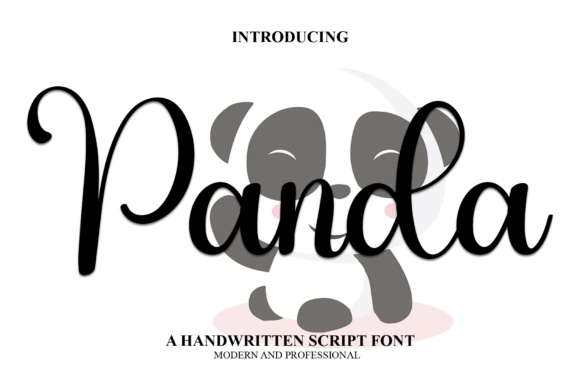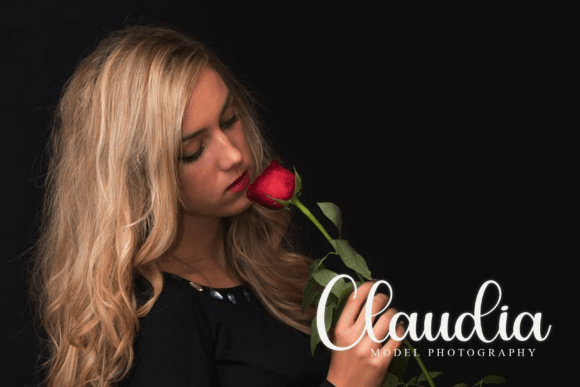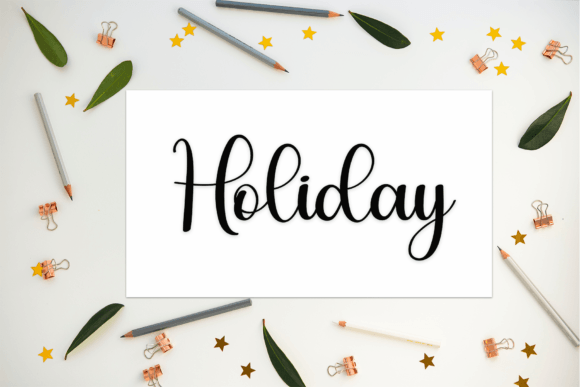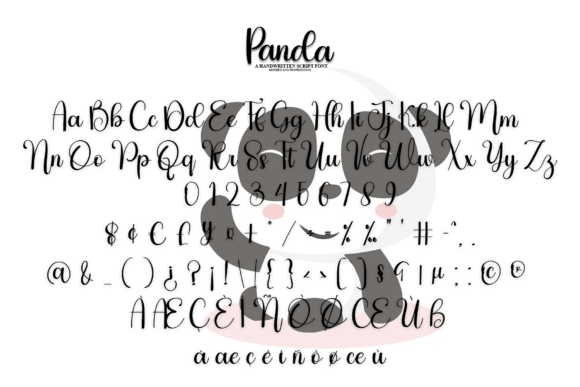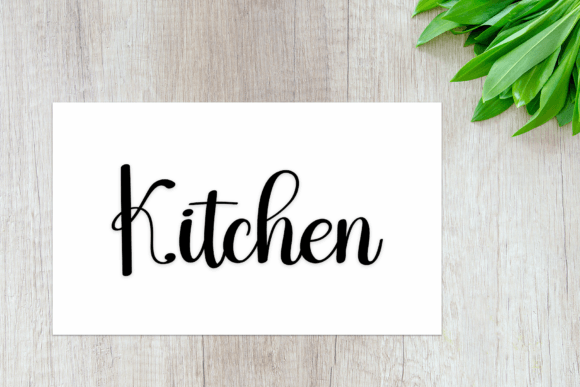
About Panda Font
Panda is a distinctive, round-lettered handwritten font that has been meticulously crafted to bring a unique touch to your favorite projects. With careful design and attention to detail, this font is intended to enhance a variety of creative works, offering versatility for writing titles, invitations, letters, and various other types of products.
The round-lettered aesthetic of Panda imparts a charming and approachable vibe to your designs. Each letter is thoughtfully shaped, contributing to the overall uniqueness and visual appeal of the font. This makes Panda a standout choice for projects seeking a touch of character and individuality.
One of the key strengths of Panda lies in its adaptability. Whether you’re working on eye-catching titles requiring a distinctive flair, elegant invitations demanding a personal touch, or heartfelt letters needing authenticity, Panda rises to the occasion. Its round-lettered style adds warmth and friendliness, making it suitable for a broad range of creative applications.
As a handwritten font, Panda brings an authentic feel to your text. Its unique style conveys a handcrafted touch, injecting personality and character into your written content. This quality is particularly valuable when you want to establish a genuine connection with your audience or infuse a sense of playfulness and charm into your designs.
Incorporating Panda into your design toolkit provides an opportunity to explore creative expressions. Its round-lettered design makes it distinctive while ensuring versatility across various design contexts.
In summary, Panda is more than just a font; it’s a carefully crafted creative tool meant to enhance and elevate your projects. Whether you’re aiming for a playful or heartfelt tone, Panda’s round-lettered style brings a unique and captivating touch to your favorite creative endeavors.